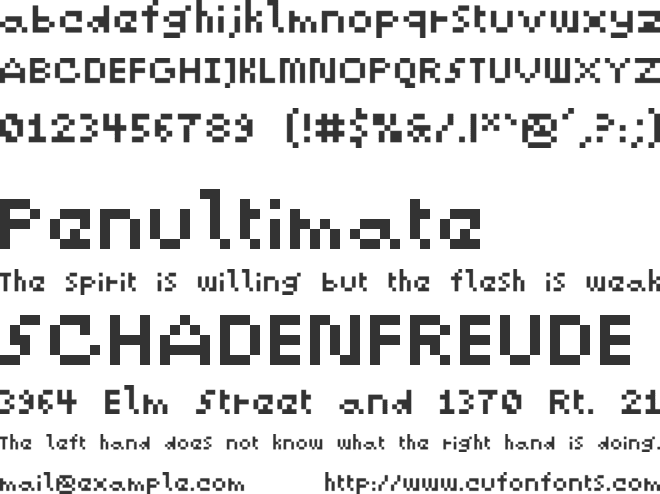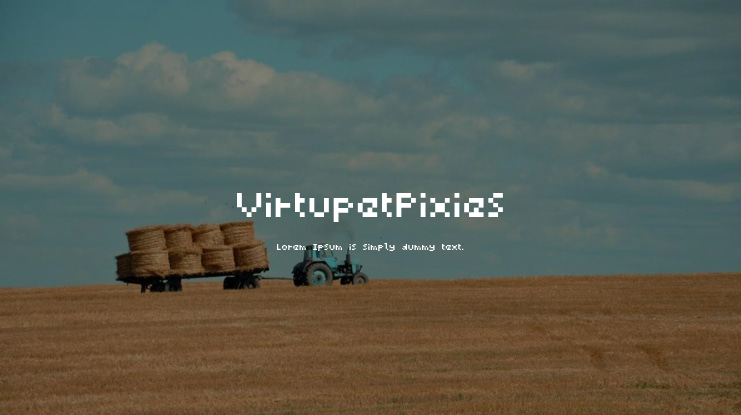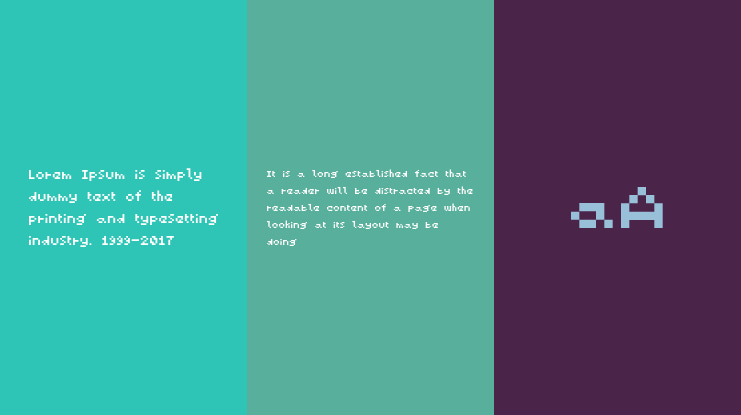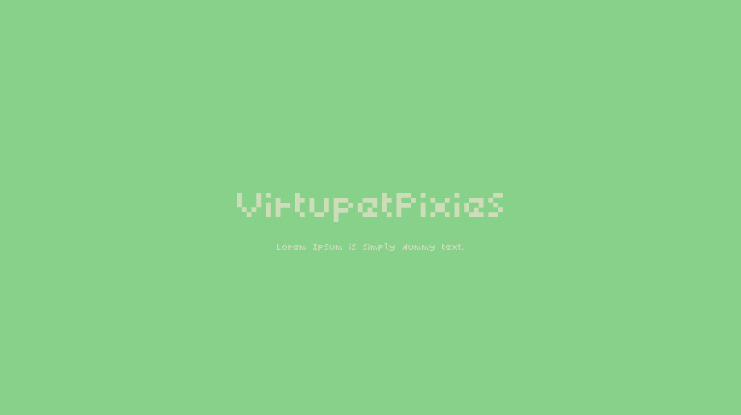
VirtupetPixies Font
VirtupetPixies is a small pixel font supports Latin and Japanese katakana and was inspired by older Japanese virtual pet LCD toys and various functioning magical girl transformation item toys from various magical girl franchises. It is both the first font and pixel font of 2025.